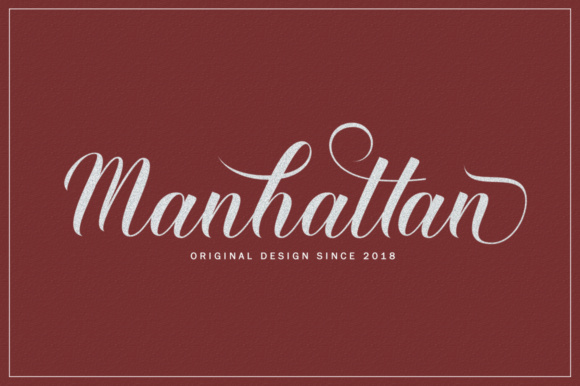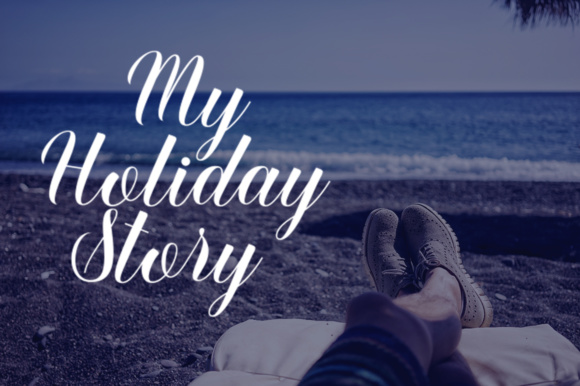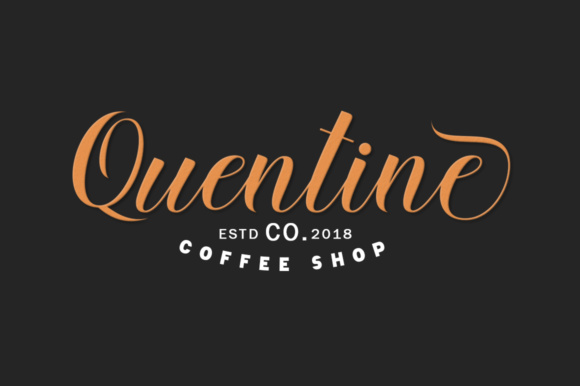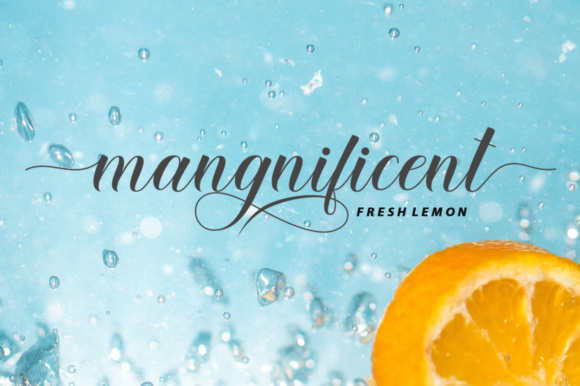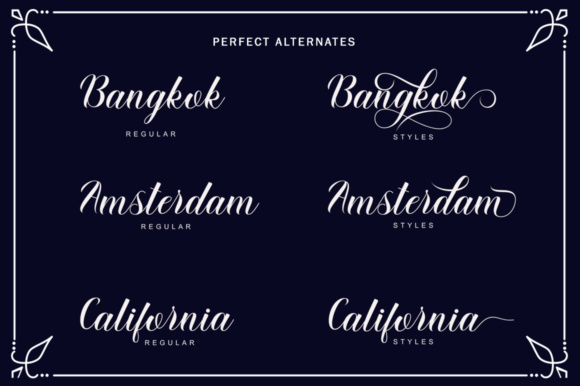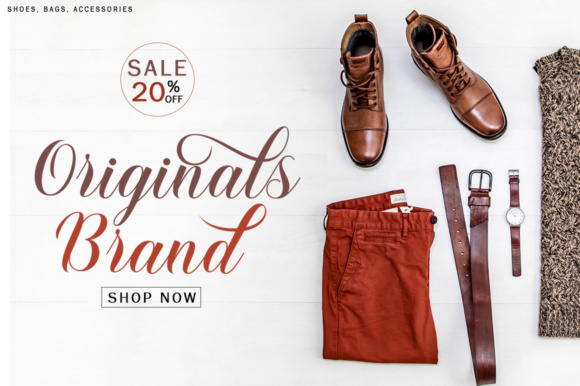
Discovering the Perfect Script Font: Ranger Script Font
Remember that moment when you’re working on a creative project, and the perfect font just slips away from you? You’re stuck with a design that’s almost there, but something’s missing. That’s where the Ranger Script Font comes in – a modern calligraphy script that adds a touch of elegance to any design.
As a valuable design resource, the Ranger Script Font is perfect for designers looking to elevate their work with a feminine yet trendy typeface. With its high-quality letters, you can create stunning designs that stand out from the crowd. Whether you’re working on a branding project, a wedding invitation, or a social media graphic, this script font is sure to make your design shine.
Key Features of Ranger Script Font
- Ranger Script Font is a unique, handwritten font ideal for creative projects and designs that require a personal touch.
- Features a transparent background, allowing for seamless integration with various design elements and backgrounds.
- Includes a range of ligatures and swashes, adding to the font’s expressive and creative feel.
- Designed to be highly legible at various sizes and resolutions, making it suitable for use in a range of applications, from small text to large headings.
Honest Review: Ranger Script Font
As a designer, I’m always on the lookout for unique and high-quality design resources. Recently, I stumbled upon the Ranger Script Font, and I have to say, it’s been a game-changer for my creative projects.
Here are some of the things that I really like about the Ranger Script Font:
- ✨ Beautiful, handwritten style that adds a touch of elegance to any design.
- ✨ Highly legible, even at small font sizes.
- ⚠️ Limited character set, which may not be suitable for complex text-based projects.
- ⚠️ Not ideal for use on a transparent background, as the text may become difficult to read.
Overall, I’m really impressed with the Ranger Script Font. It’s a high-quality design resource that’s perfect for adding a personal touch to your creative projects. With its beautiful, handwritten style and high legibility, it’s a great choice for designers who want to add a bit of flair to their work.
Ranger Script Font
Ranger Script Font is a high-quality design resource perfect for any creative project. With its elegant and sophisticated look, it’s ideal for adding a touch of sophistication to your designs.
Tips for Getting the Most Out of Ranger Script Font
For the best results, use Ranger Script Font with a high-quality image or design element. Experiment with different font sizes and colors to achieve the desired look. You can also combine Ranger Script Font with other fonts to create a unique and creative design.
Ranger Script Font is commonly used in wedding invitations, baby shower invitations, and other special occasion designs. It’s also perfect for creating elegant and sophisticated business cards, logos, and branding materials.